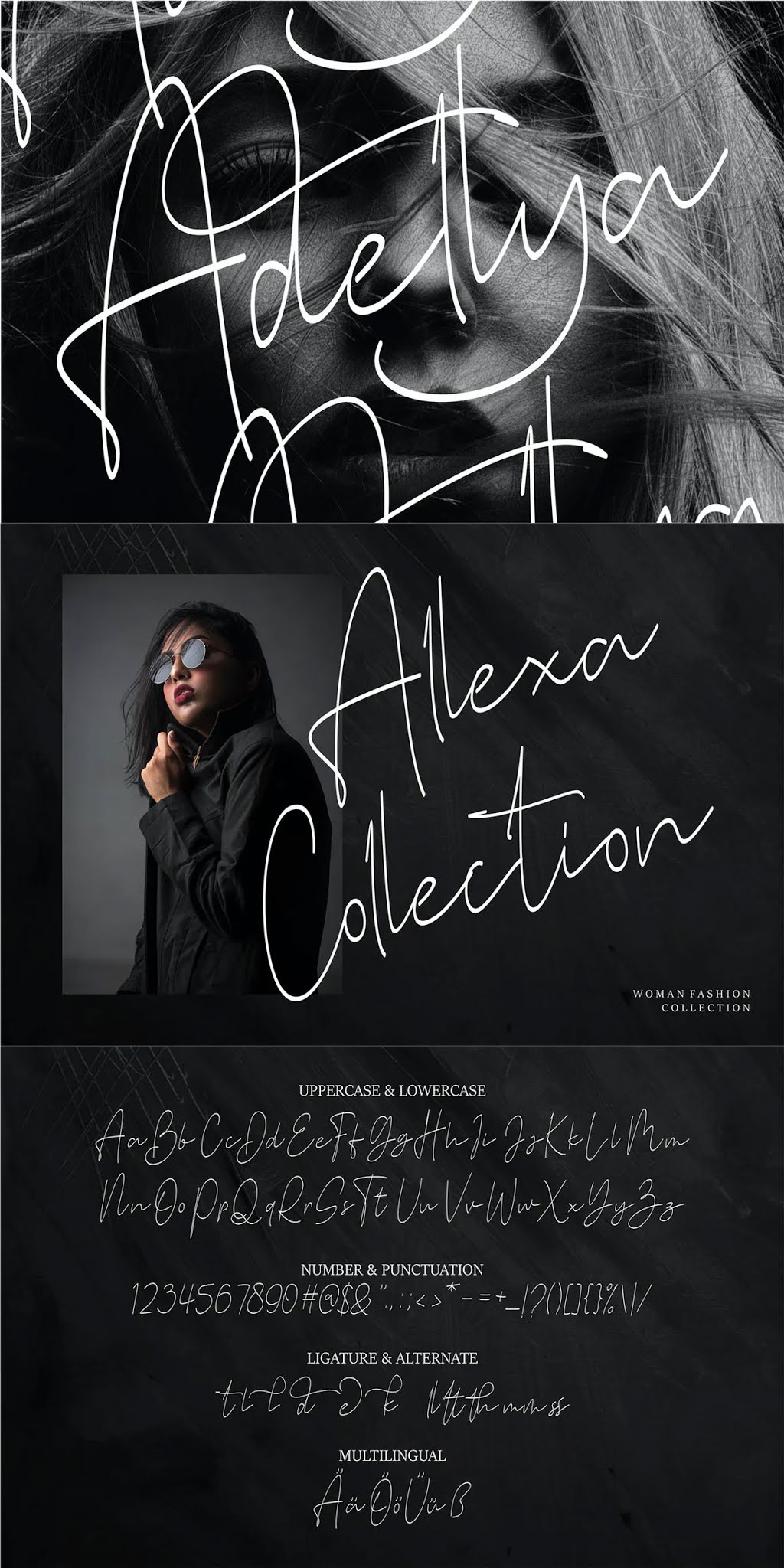
Stone Garden | Script Font
Envato Elements Stone Garden | Script Font Free Download. Stone Garden | Script Font with a calligraphy style, So beautiful on invitation like greeting cards, branding materials, business cards, quotes, posters, and more – free font download.
The alternative characters were divided into several Open Type features such as Stylistic Sets, Stylistic Alternates, Contextual Alternate, SWASH, and Ligature.
• Tons of glyphs
• Alternates and Ligatures
• Fonts include Multilingual Support